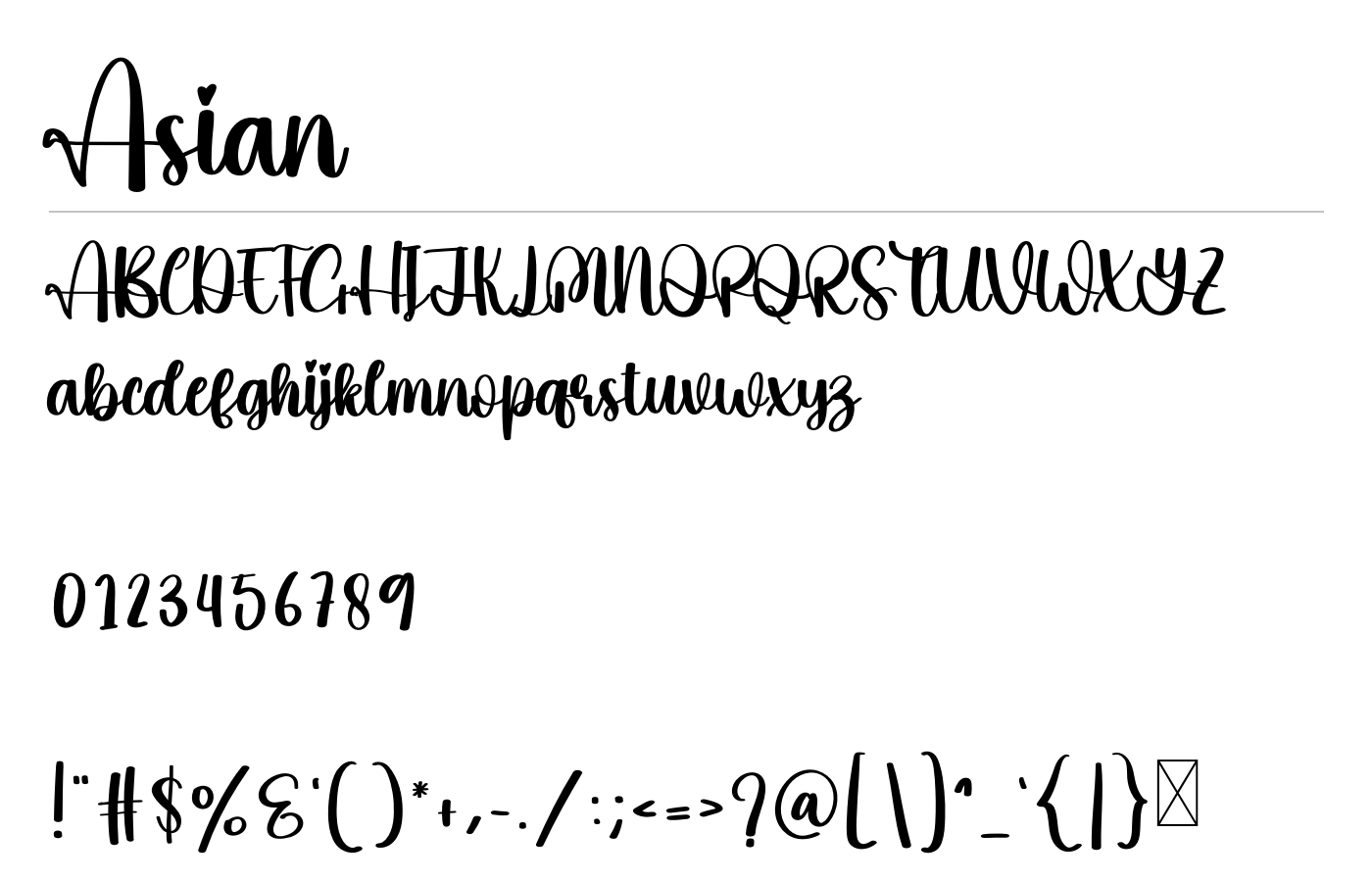
Asian Font is a playful and elegant script typeface with a handwritten feel, featuring smooth, rounded strokes and charming swashes that add personality without sacrificing readability. Its moderate weight and lively letterforms make it ideal for creative projects like invitations, branding, and packaging where a warm, friendly, and stylish touch is desired. This font works beautifully in headlines and decorative text, bringing a joyful and modern flair to any design.
Asian Font
About Asian Font